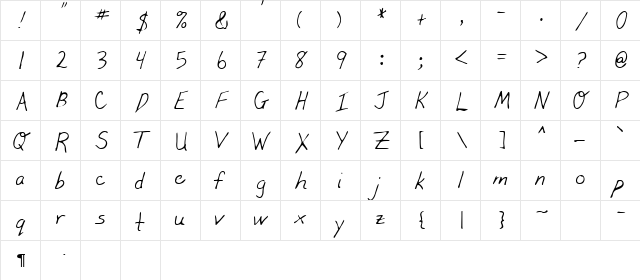
Irv Regular
Design Context for Irv Typeface
Irv is a composed and adaptable typeface that performs quietly and consistently across a wide range of design contexts.